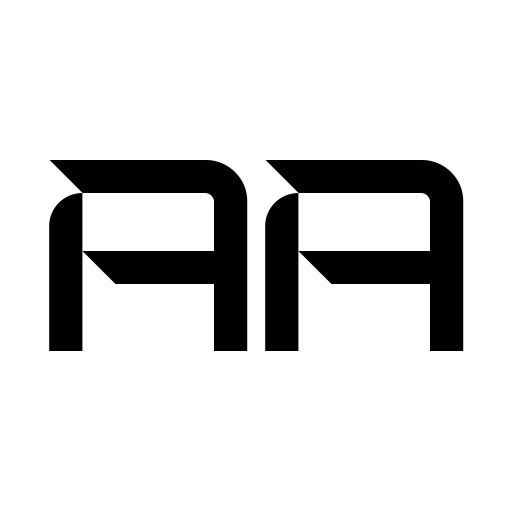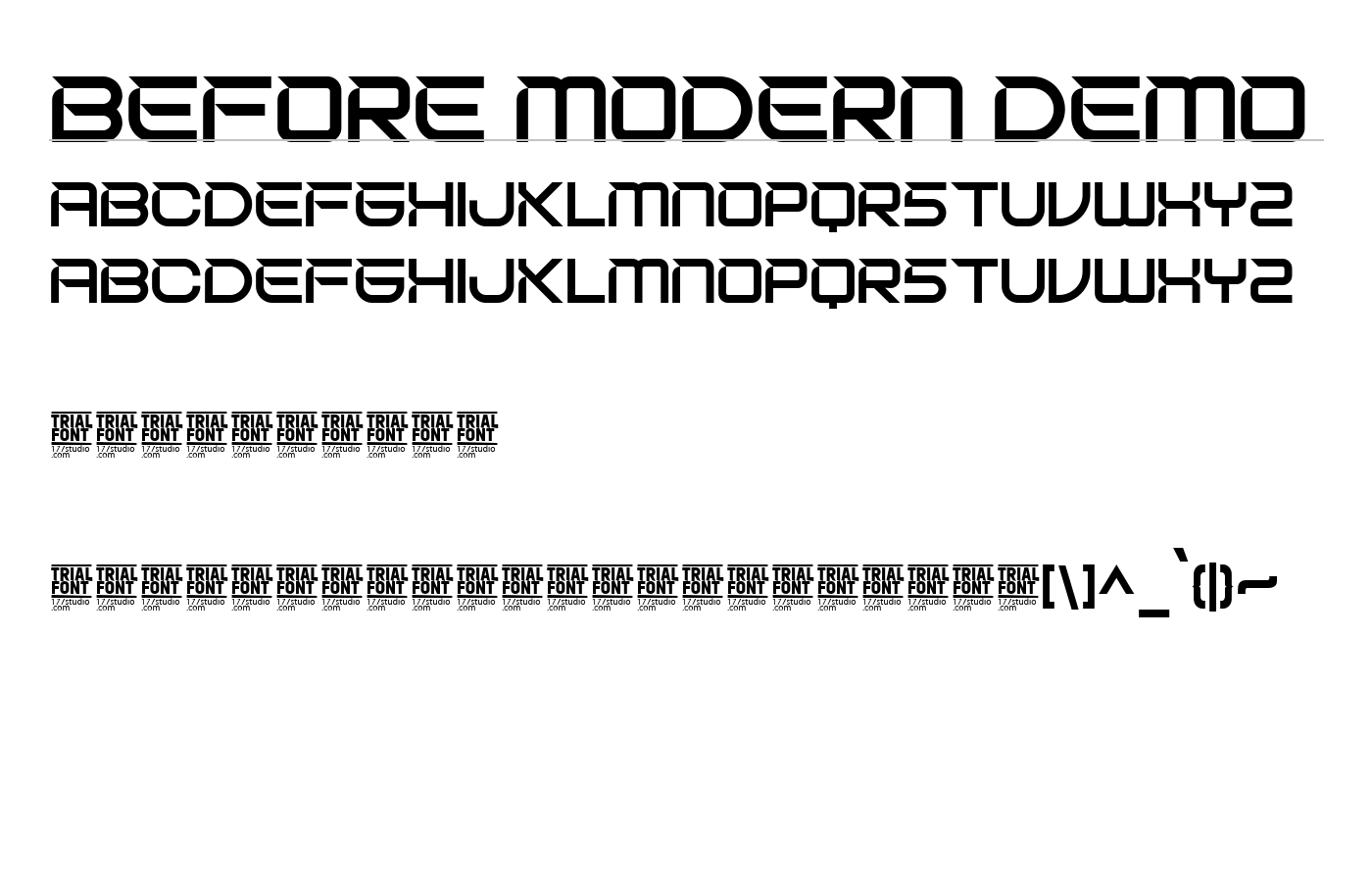
Before Modern Demo is a bold, geometric sans serif font with a futuristic and tech-inspired vibe. Its sharp angles and unique letterforms give it a strong, modern presence that works well for headlines, logos, and branding projects aiming to convey innovation and cutting-edge style. This font is ideal for designers looking to make a bold statement with a clean, yet distinctly modern aesthetic.
Before Modern Demo Font
About Before Modern Demo Font